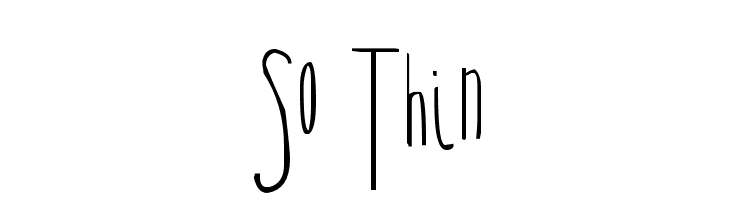
A sleek, ultra-thin, and elongated font with consistent stroke width.
A playful, casual handwritten font with rounded, smooth letterforms.
A bold, modern font with a semi-condensed style, ideal for impactful displays.
A bold, 3D geometric font with a futuristic and dynamic style.
A bold, geometric font with sharp angles and a futuristic style.
A bold, Gothic-inspired font with sharp edges and pointed serifs.
A bold, edgy font with thorn-like extensions and chaotic strokes.
A flowing, handwritten style with elongated, slanted letters and thin strokes.
An elegant script font with flowing, cursive strokes and graceful curves.
A modern, geometric unicase font with clean, rounded characters.